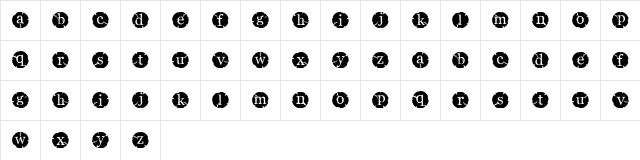
CBX-ChippyCircles Regular
| Foundry | Chatterbox |
Design Context for CBX-ChippyCircles Typeface
CBX-ChippyCircles is a composed and adaptable typeface that performs quietly and consistently across a wide range of design contexts.